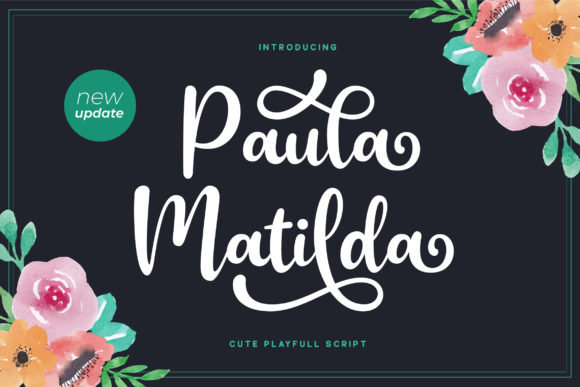
In a world brimming with endless possibilities, Paula Matilda Font emerges as a breathtaking masterpiece, beckoning you to unleash your creativity and transform your designs into captivating works of art. Crafted with meticulous attention to detail, this elegant and flowing handwritten font will add a touch of charm and sophistication to your projects, leaving an enduring impression on your audience.
As you embark on your creative journey with Paula Matilda, you'll be captivated by its varying baseline, smooth lines, and stunning alternates. Each character dances across the page with grace and fluidity, reflecting the essence of timeless calligraphy while embracing a modern and refreshing aesthetic.
Imagine the possibilities as you weave your words into enchanting invitations, heartfelt letters, whimsical posters, and eye-catching social media posts. Paula Matilda's versatility knows no bounds, making it the perfect font for a multitude of projects, from personal expressions to professional endeavors.
With Paula Matilda Font, you'll discover a world of boundless creativity, where your imagination takes center stage. Its enchanting glyphs and swashes will elevate your designs, adding a touch of magic and intrigue that will leave your audience spellbound.
Embrace the beauty of Paula Matilda Font and watch as your projects blossom into masterpieces. Let your creativity soar and experience the joy of creating designs that resonate with elegance, charm, and timeless appeal.